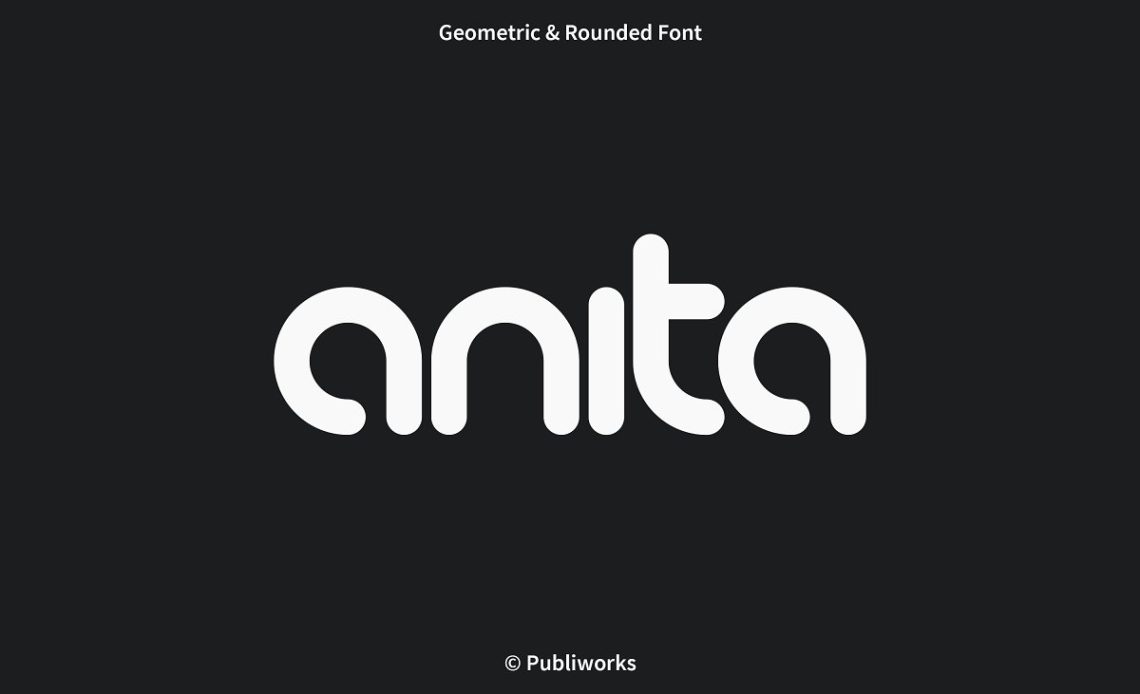
Looking for the perfect font to elevate your vintage design? Look no further than Anita - Geometric & Rounded Font! This sans serif font family boasts 3 styles - Light, Regular, and Bold - giving you the versatility you need to bring your vision to life. With 209 characters in both Basic and Advanced sets, including lowercase and uppercase letters, numerals, and punctuation, this font is a must-have for any designer.
But what really sets Anita apart is its unique blend of geometric and rounded features, creating a truly one-of-a-kind look that will catch the eye of anyone who sees it. Plus, with its OTF file format and multilingual support, Anita is easy to use and perfect for any project.